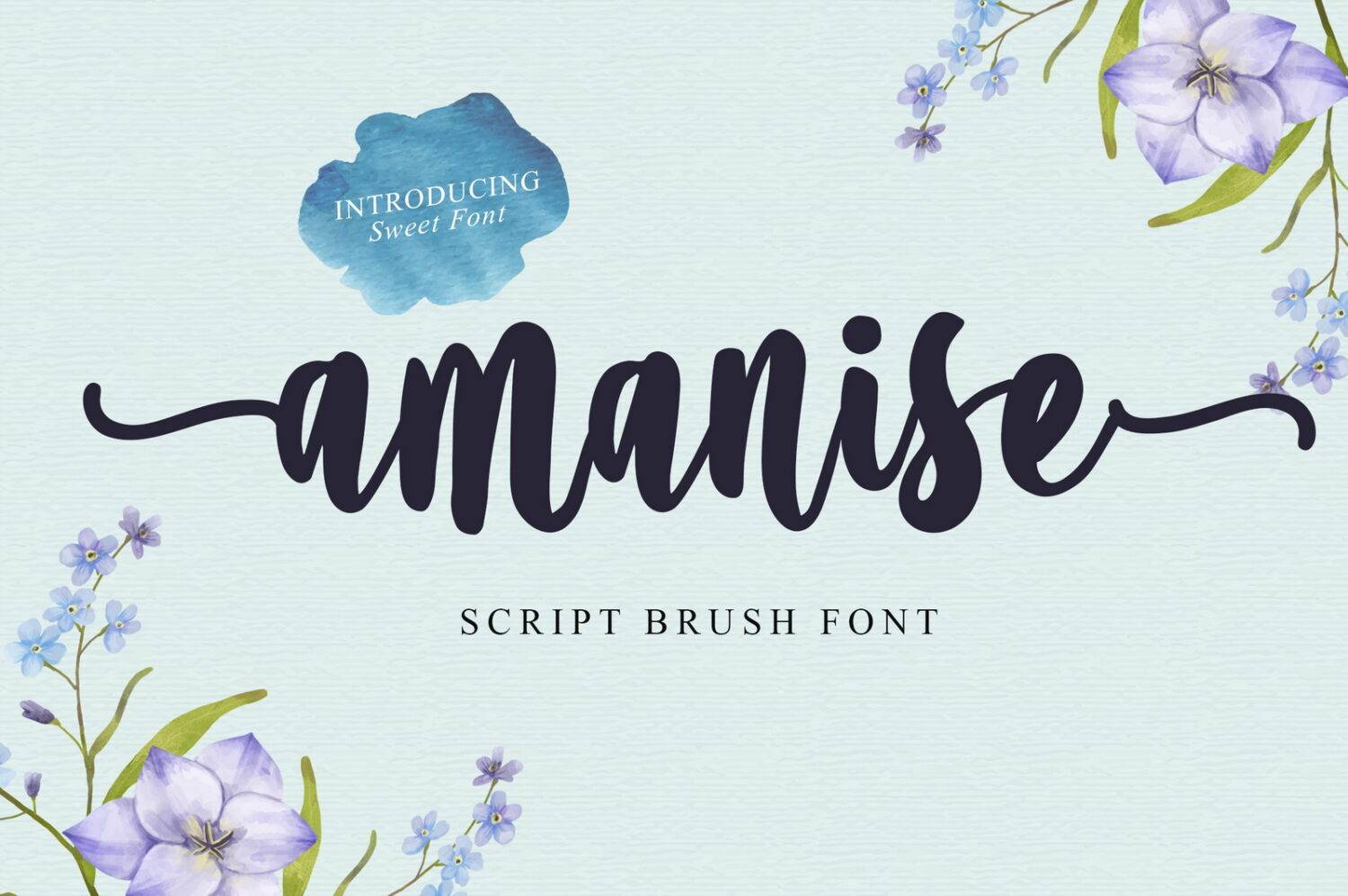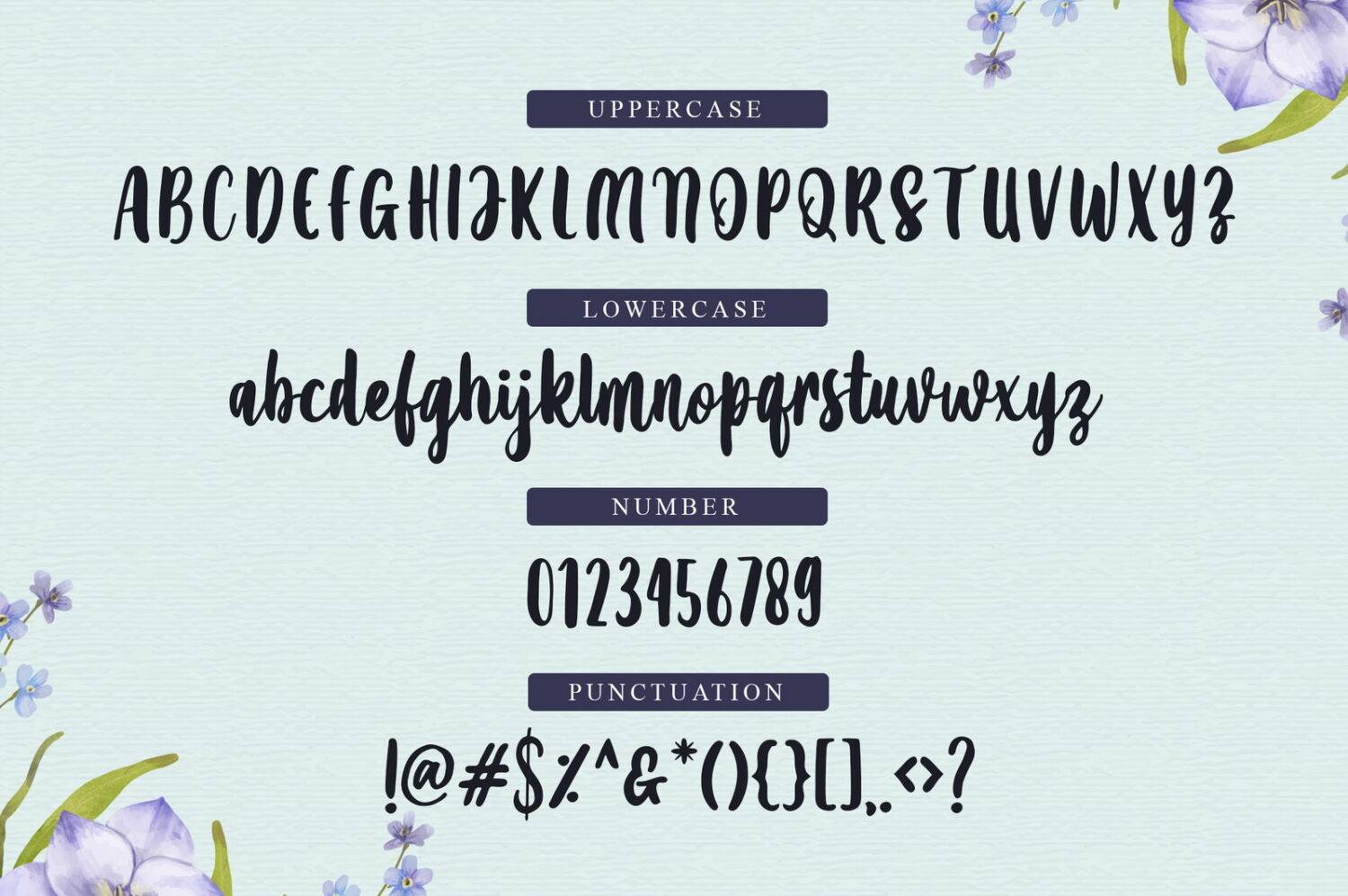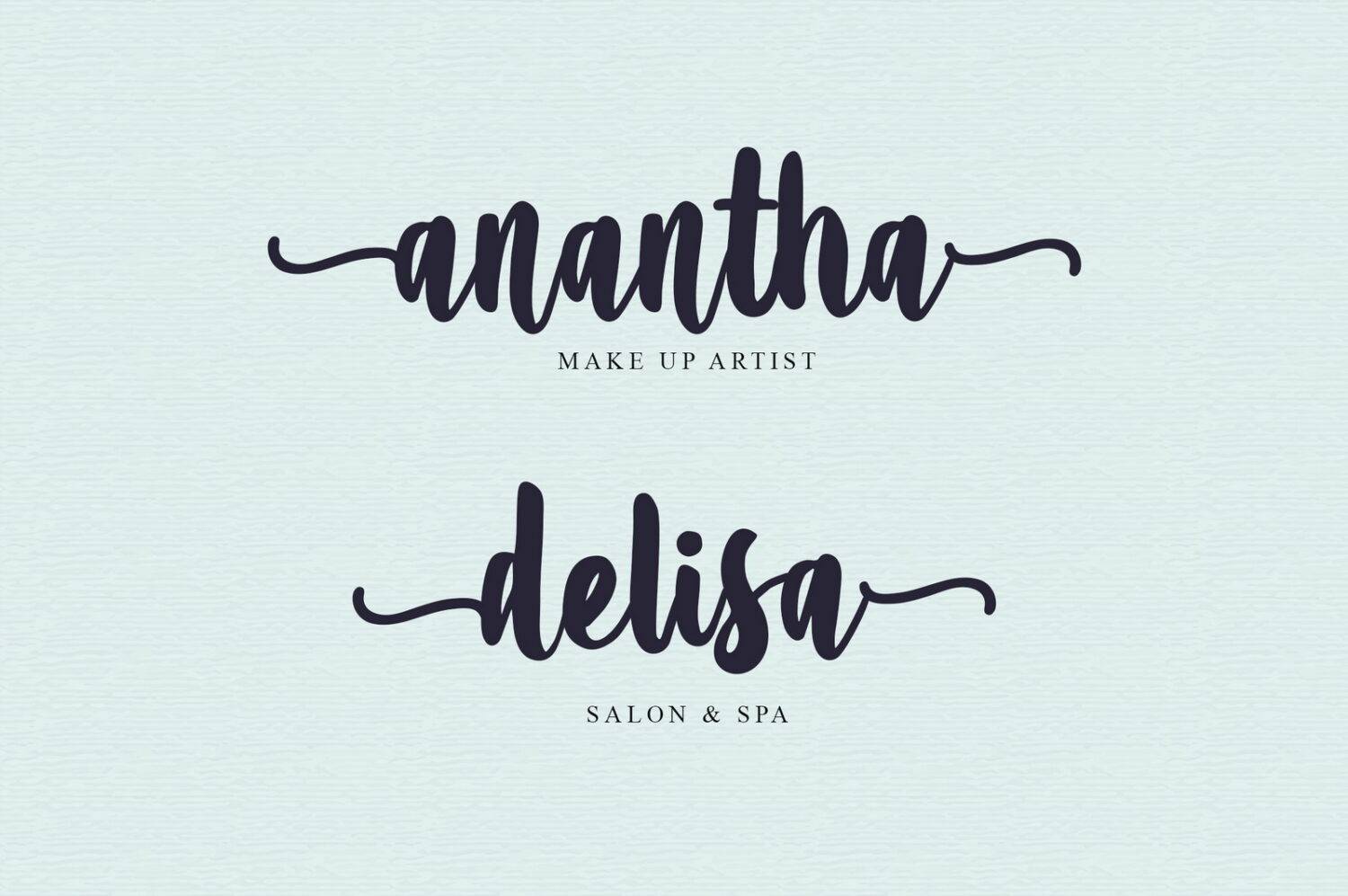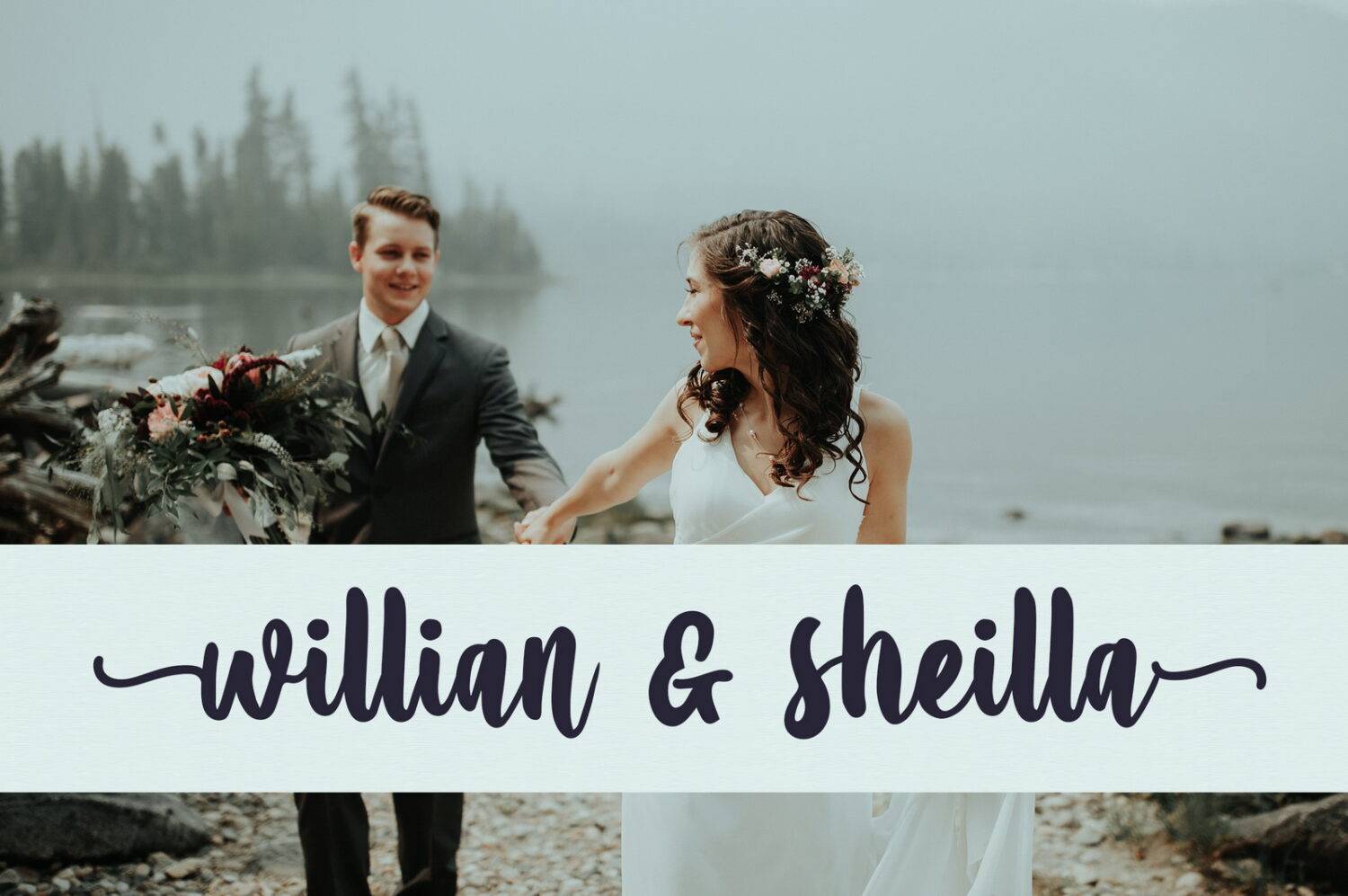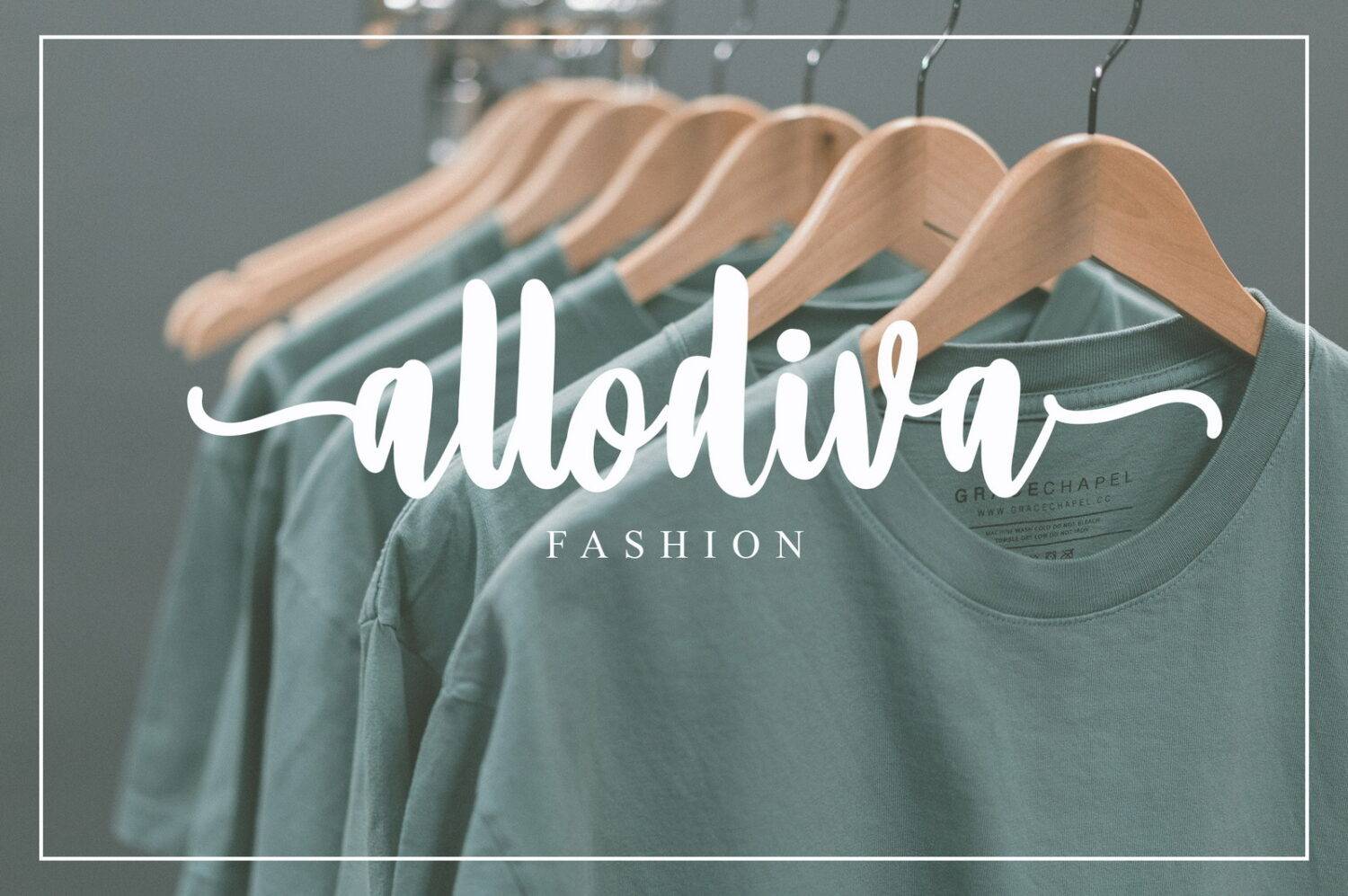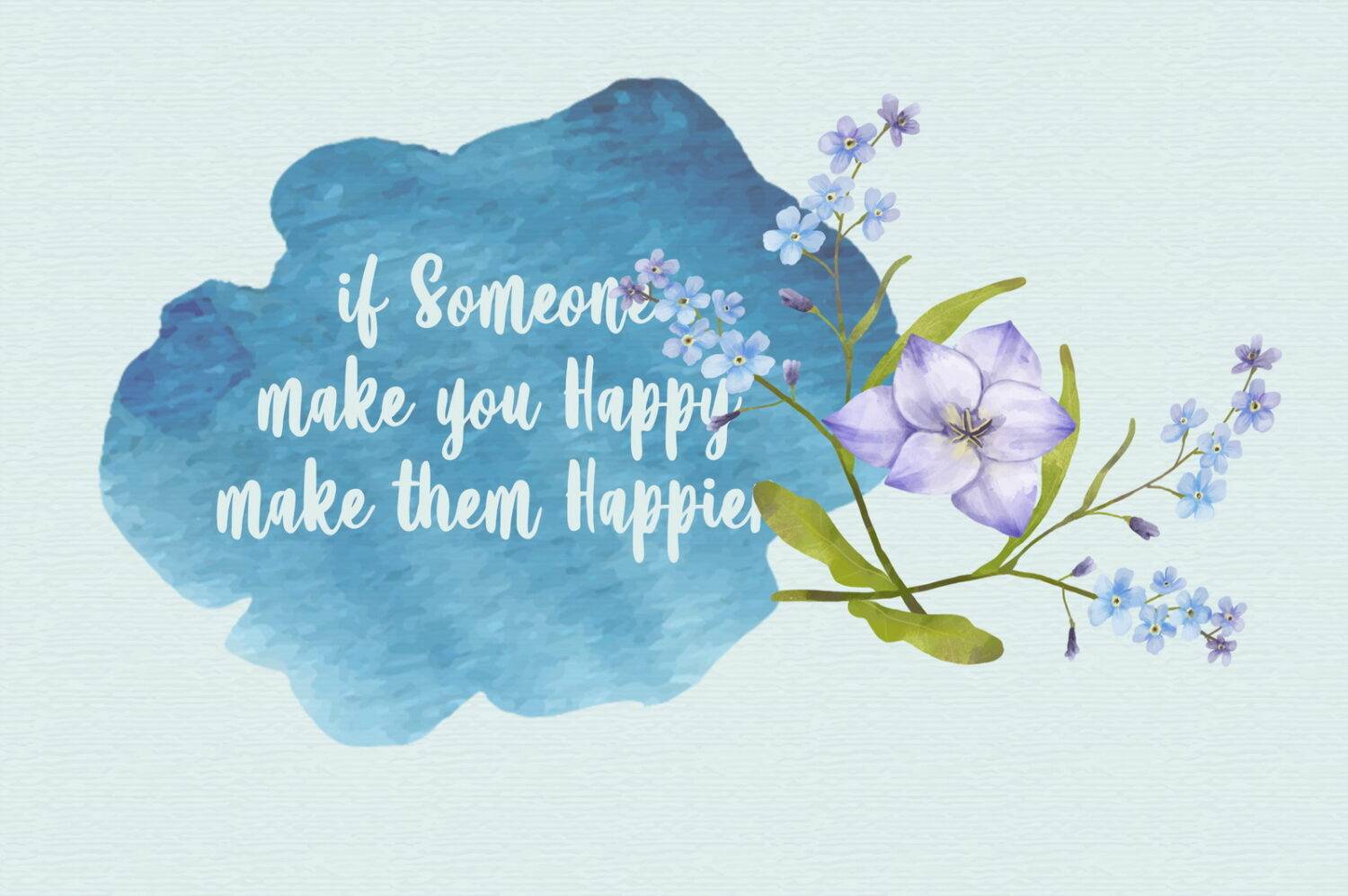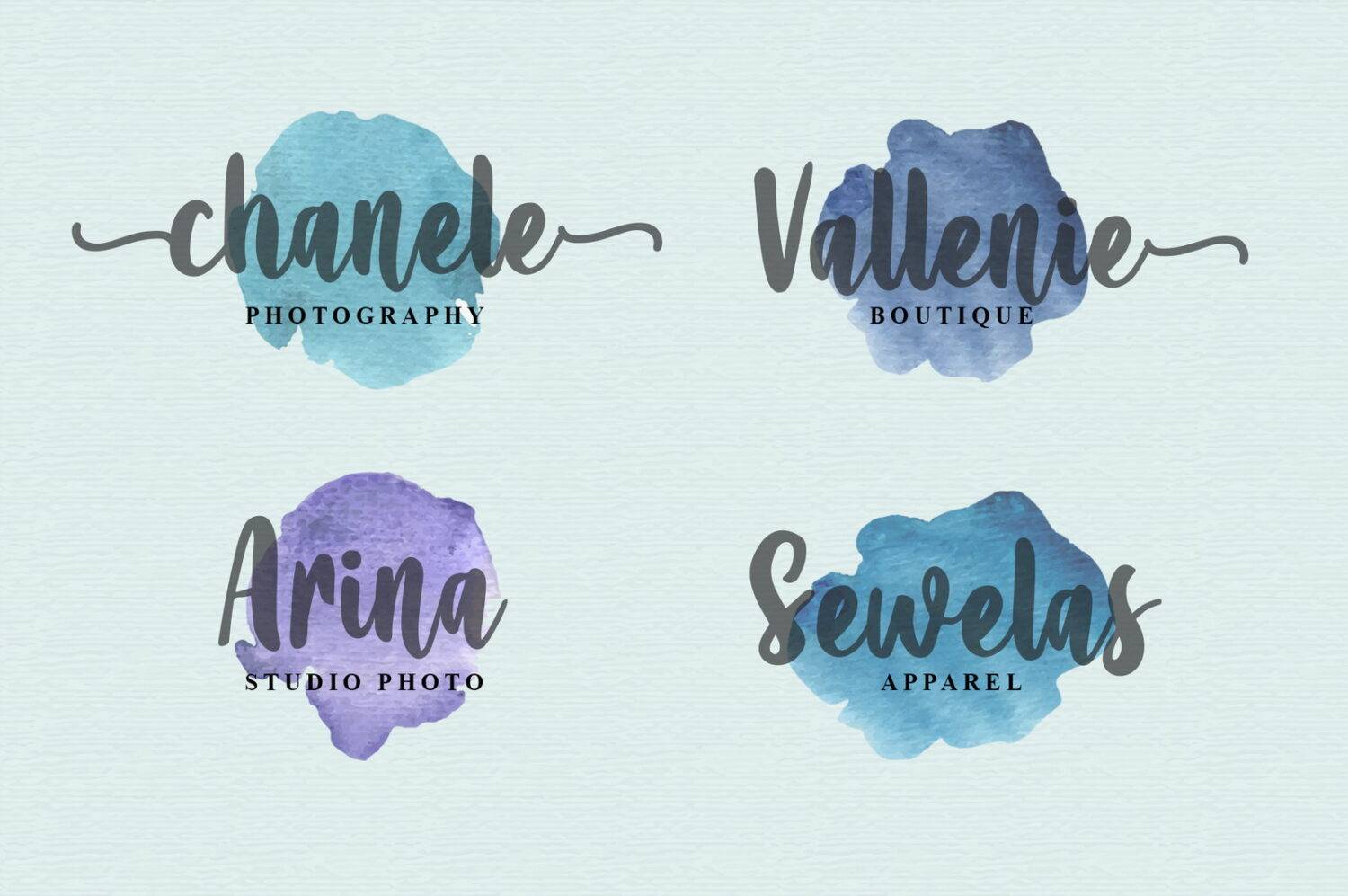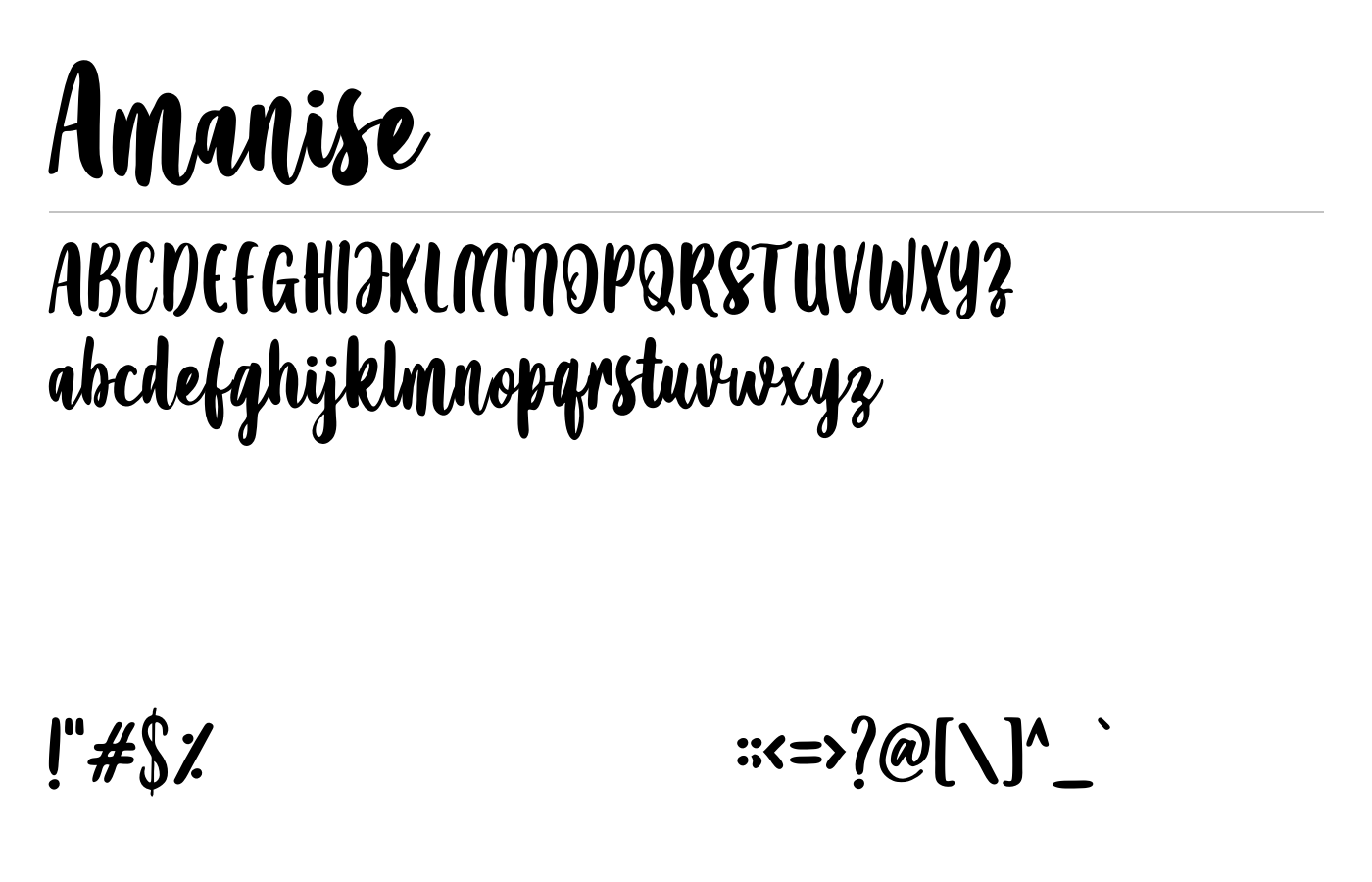
Amanise Script is a bold and lively script font with playful, hand-drawn letterforms that bring a sense of warmth and friendliness. Its varied stroke width and slightly irregular shapes give it an informal, approachable vibe, making it perfect for creative branding, invitations, and casual headlines that need a personal touch. This font adds personality and charm to designs that seek a fun yet stylish appearance.